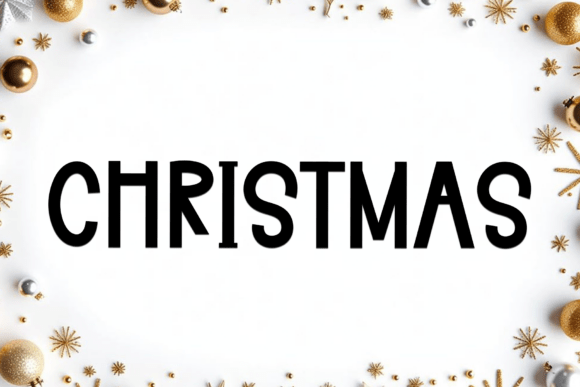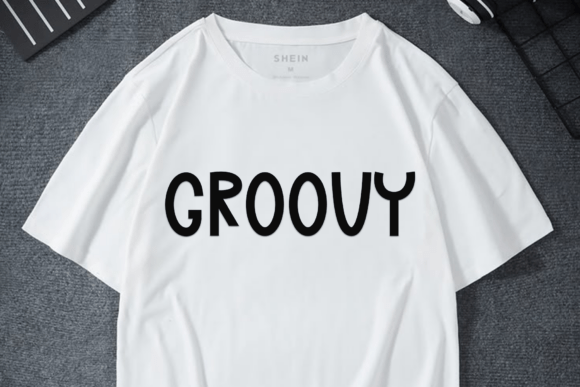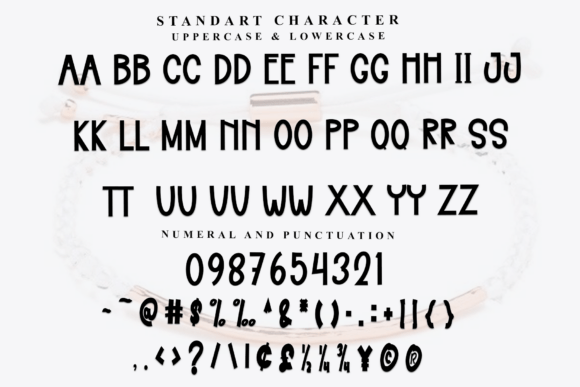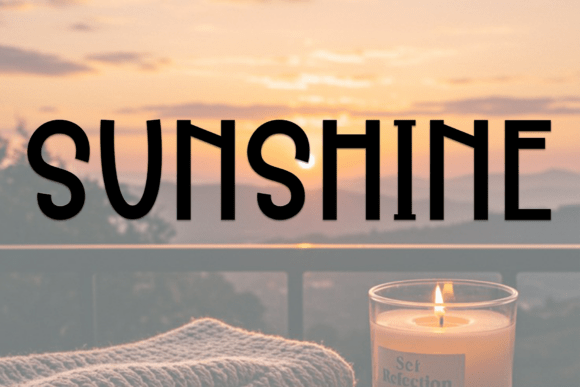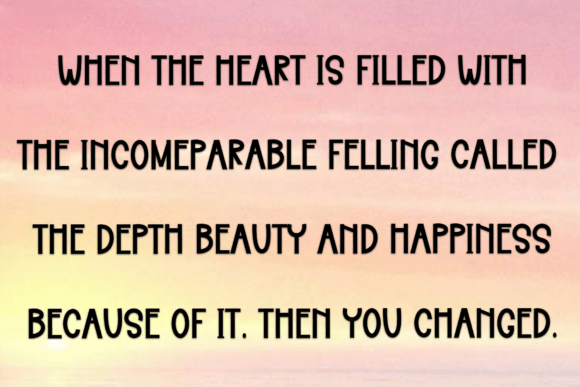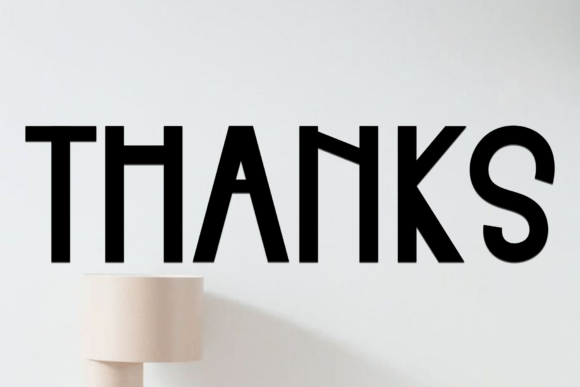
The Designer’s Delight: A Deep Dive into the Believe Font
I’ll never forget the frustration of working on a design project, hours pouring over every detail, and then getting stuck on one thing: the font. It was for a client’s branding project, and I wanted something that would capture the essence of their business – a mix of elegance, playfulness, and professionalism. That’s when I stumbled upon the Believe font. It was love at first sight! ✨ In this article, I’ll share my experience with this beautiful font, its features, and how you can make the most of it in your designs.
First Impressions: A Personal Review
- ✨ The soft, unique touch that sets it apart from more traditional fonts
- ✅ The distinctive strokes that give it a special character
- 🌈 A wide range of characters that make it versatile for various design projects
While the Believe font is amazing, there are a few things to keep in mind: 🤔
- ⚠️ Some characters might require adjustments to ensure proper kerning and spacing
- ⚠️ It might not be the best fit for very long texts or body content, as it’s more suited for headlines and titles
- Experiment with OpenType features, such as ligatures and stylistic alternates, to add more flair to your design
The Story Behind Believe Font
The Believe font was designed with the intention of creating a unique, eye-catching typeface that would inspire creativity and positivity. The designer aimed to craft a font that would be both beautiful and versatile, suitable for a wide range of design projects. While the exact story behind the font’s creation might be unknown, its impact on the design community is undeniable.
| Is the Believe font suitable for body content? | While the Believe font is beautiful, it’s more suited for headlines, titles, and short texts. For longer content, you might prefer a more traditional font. |
In conclusion, the Believe font is a stunning addition to any designer’s toolkit. Its unique touch, versatility, and compatibility make it an excellent choice for various creative projects. By understanding its features, quirks, and applications, you can unlock its full potential and take your designs to the next level.